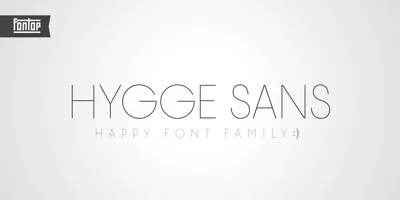
Hygge Sans Font
Hygge Sans Font is perfect for minimalist branding, modern websites, mobile app interfaces, editorial design, corporate presentations, signage systems, annual reports, and clean poster designs. This contemporary sans-serif typeface excels in digital applications and print media where clarity and modern aesthetics are essential.
What makes Hygge Sans Font exciting is its perfect balance between warmth and professionalism, embodying the Danish concept of comfort and coziness in typography. The font features clean geometric shapes with subtle humanist touches that create an approachable yet sophisticated appearance. Its versatile character makes it ideal for brands seeking to convey trustworthiness, innovation, and contemporary style.
Hygge Sans Font family includes multiple weights ranging from thin to black, along with corresponding italic styles. The comprehensive family typically offers light, regular, medium, semibold, bold, and extra bold variations, providing designers with extensive typographic flexibility for creating effective visual hierarchies in any project.
Whether you're developing tech startup branding, designing user interfaces, or creating editorial layouts, Hygge Sans Font delivers exceptional performance across all media. This font's clean lines and excellent legibility make it perfect for both screen and print applications.
The optimized character spacing and balanced proportions of Hygge Sans Font ensure outstanding readability at any size, from small body text to large display headlines. Its modern geometric construction combined with friendly curves creates a distinctive personality that stands out in today's competitive design landscape. Download Hygge Sans Font today and experience the perfect blend of Scandinavian minimalism and contemporary typography.